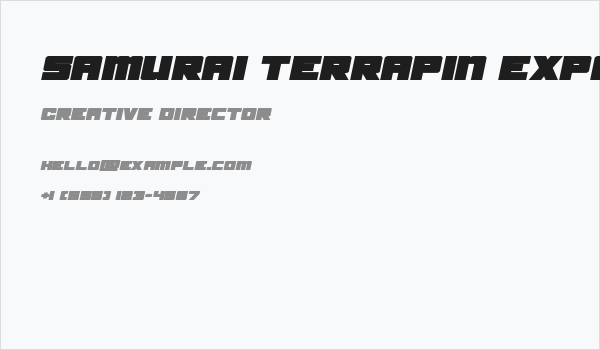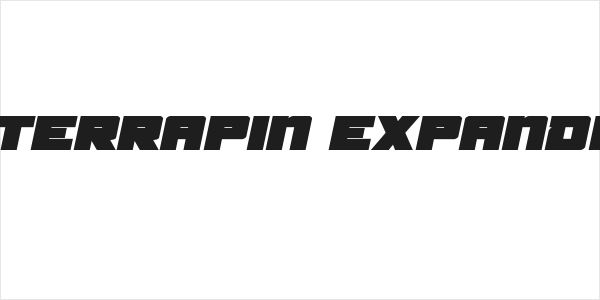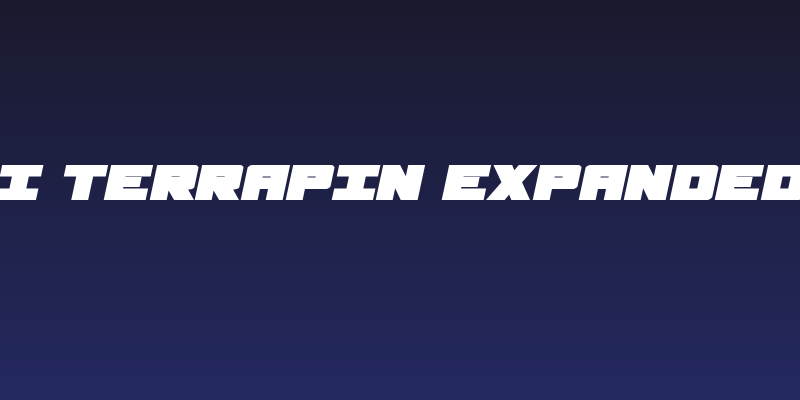
Samurai Terrapin Expanded Italic Font
Samurai Terrapin Expanded Italic Description
This font features a bold, dynamic style with an expanded and italicized form. The characters are robust and angular, giving a sense of movement and energy. The uppercase and lowercase letters maintain a consistent weight, contributing to a cohesive appearance. The numbers and special characters are equally bold, ensuring readability and impact. The font's design is modern and assertive, making it suitable for projects that require a strong visual presence. Its expanded width and italic slant add a unique flair, making it stand out in any design context.
| Proposed Projects | Ideal for sports branding, action-themed posters, video game titles, and dynamic logo designs. |